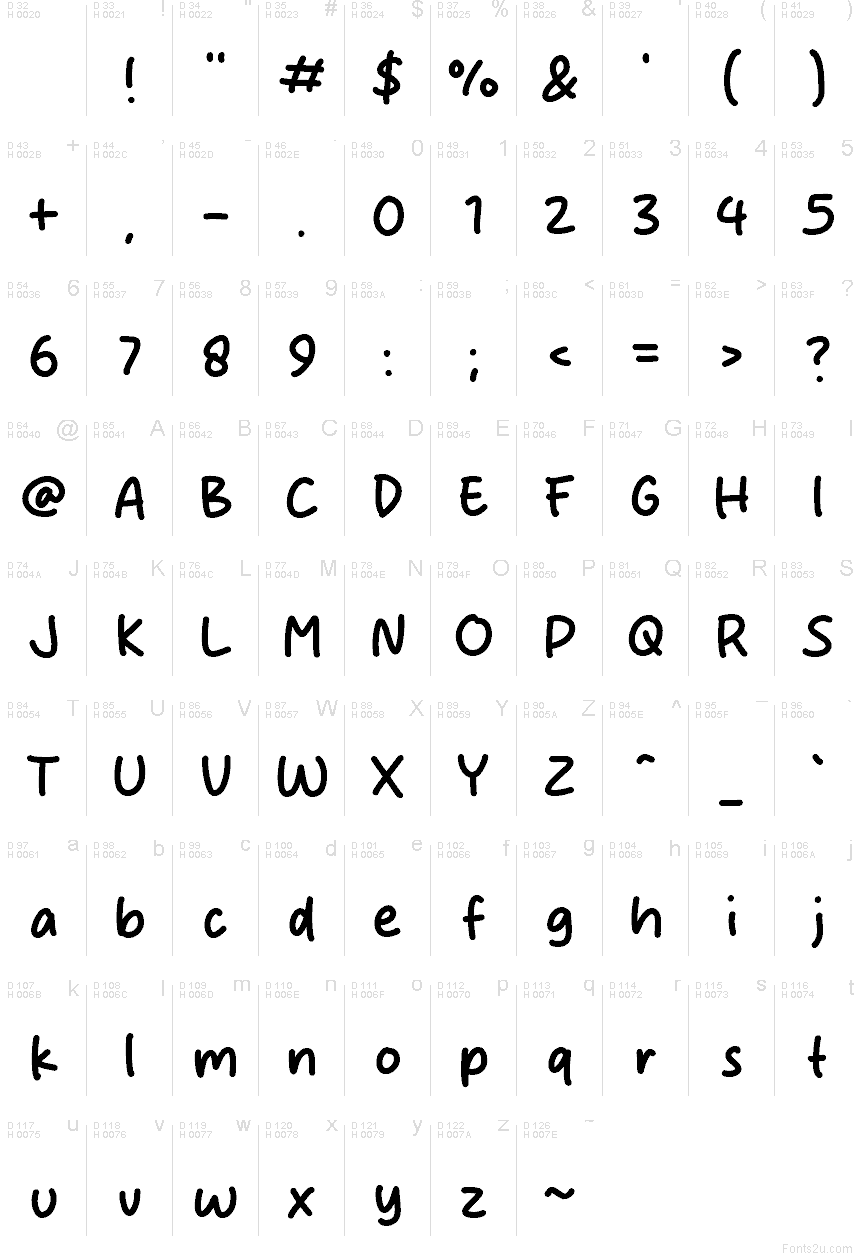
Silent Blink
Silent Blink font by Origin Type is a free handwritten font that captures the warmth of marker pen lettering without losing clarity. Its rounded strokes, even rhythm, and gentle weight make it feel friendly and human, yet still tidy enough for real-world interfaces and longer phrases. The letters sit close without crowding, giving text a cozy, conversational tone that’s easy on the eyes.
Using Silent Blink, you can bring a relaxed, personal voice to social graphics, kids’ branding, packaging, planners, quote posts, and casual newsletters. This free font holds up well at smaller sizes, so it also works beautifully for labels and UI microcopy where many handwritten options fall apart. Try pairing Silent Blink with a clean geometric sans for body text to keep layouts feeling playful but organized.